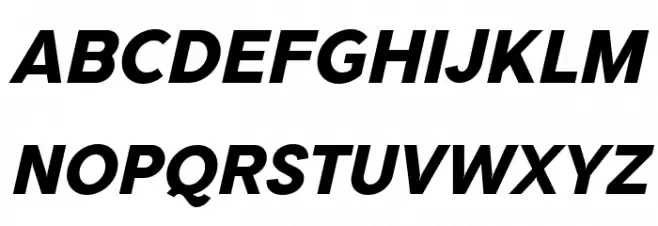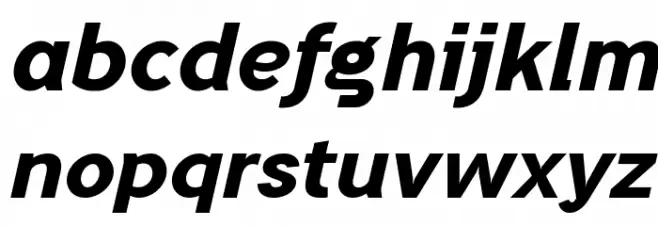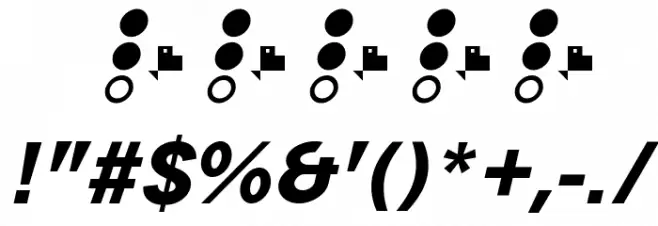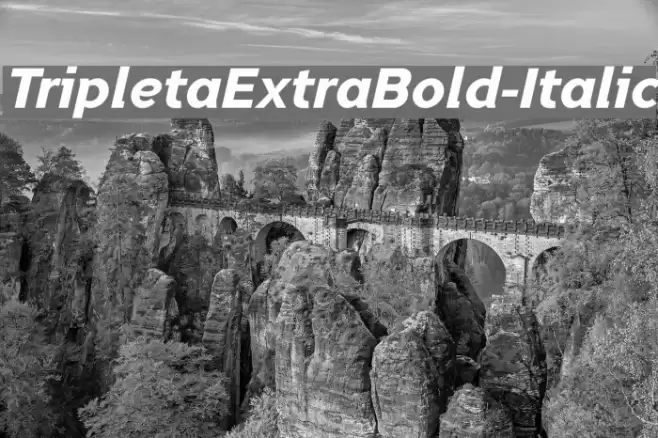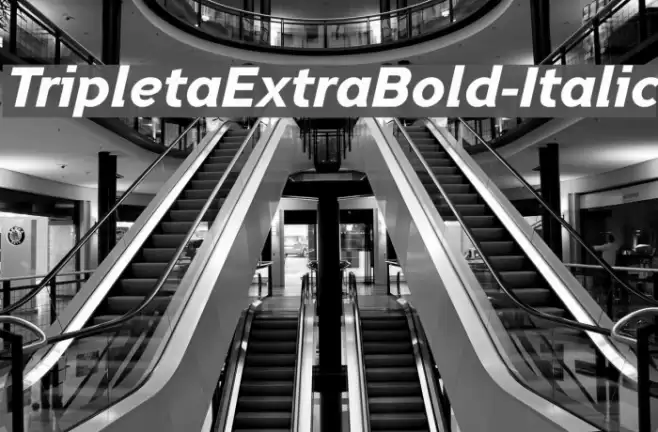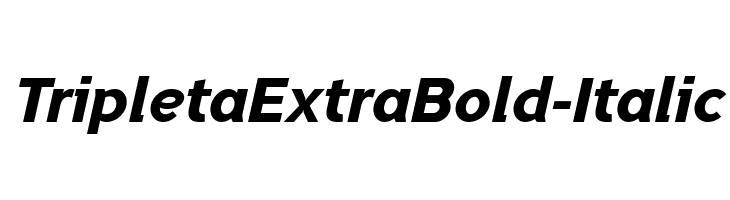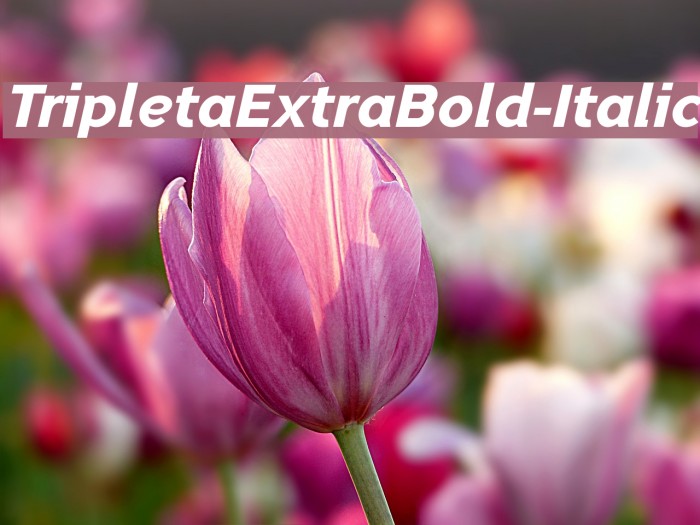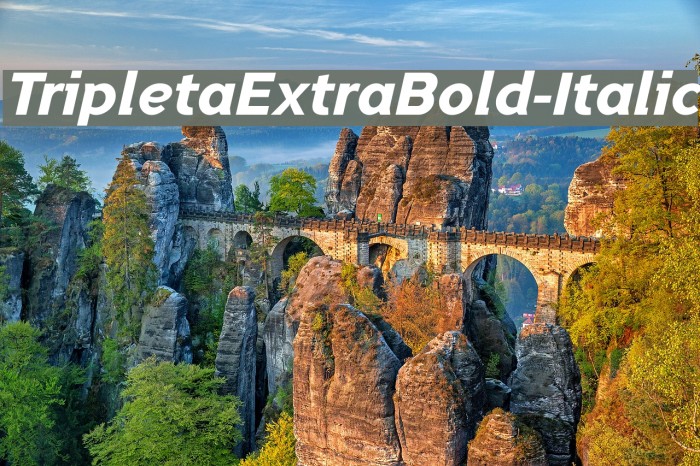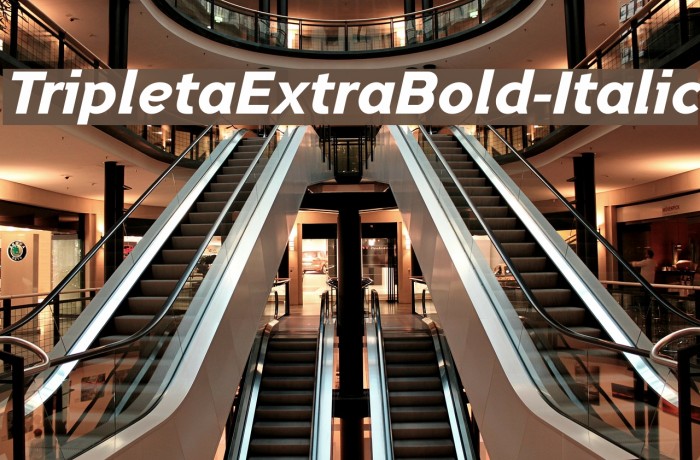
TripletaExtraBold-Italic
This font exhibits a bold and dynamic presence with its extra bold weight and italic style. The characters are designed with a slight slant, adding a sense of movement and urgency. The strokes are thick and consistent, providing a strong visual impact. The uppercase and lowercase letters are well-proportioned, maintaining readability while conveying a modern and assertive tone. The numerals and special characters are crafted with the same boldness, ensuring uniformity across all text elements. This font is ideal for making statements that require attention and clarity.
A bold, italic font with a modern and dynamic style.
- Proposed Projects: Ideal for branding, advertising, headlines, and any design requiring a strong, impactful font.
- Use Case: Headlines, Logos, Branding